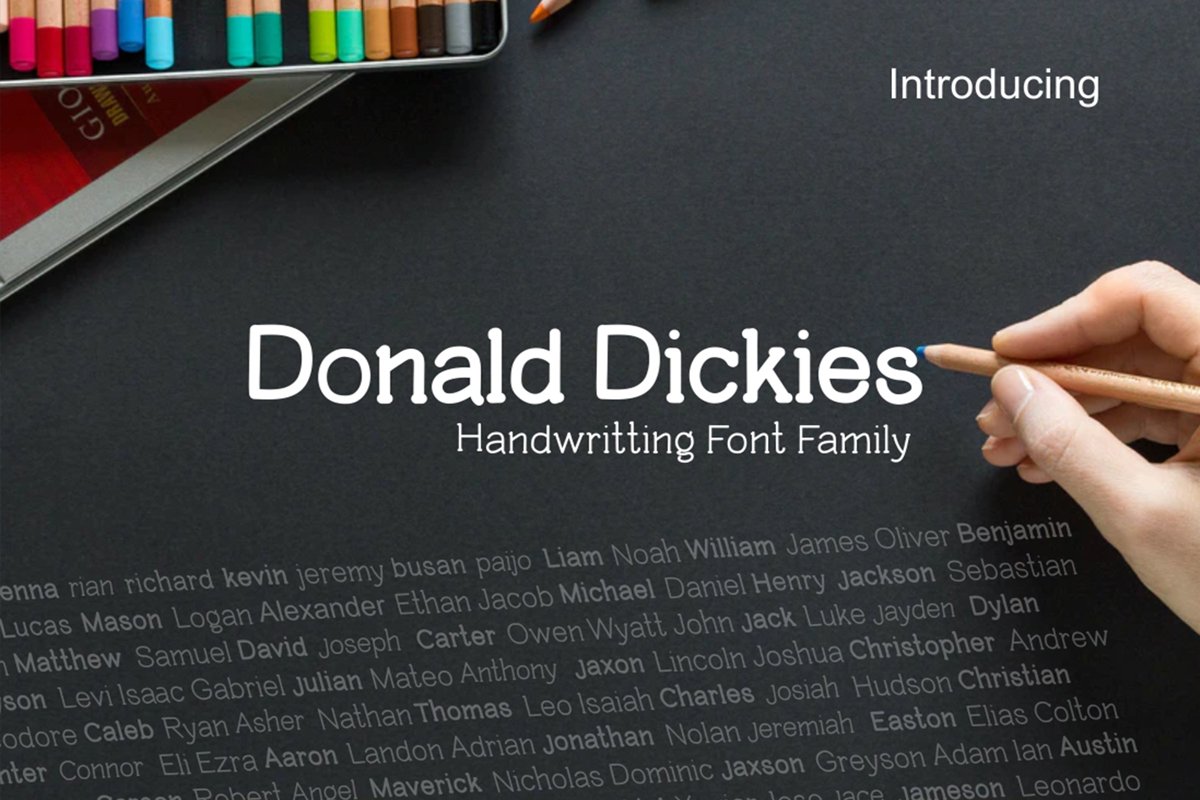
Donald Dickies Family font
Donald Dickies V.02 is the second font version of the Donald Dickies handwriting Family font series, it supports multilingual and ligature additions ... etc
this font can be used easily and simply because there are a lot of features in it to contain a complete set of letters lower and uppercase letters, assorted
punctuation, numbers, multilingual support.
This font is suitable for a variety of purposes, with a variety of features and alternative options, will greatly help beautify your product or work
• letters lower
• uppercase letters
• punctuation
• numbers
• multilingual
• Donald Dickies Regular
• Donald Dickies Thin
• Donald Dickies Italic
• Donald Dickies Bold
• Donald Dickies Extrabold